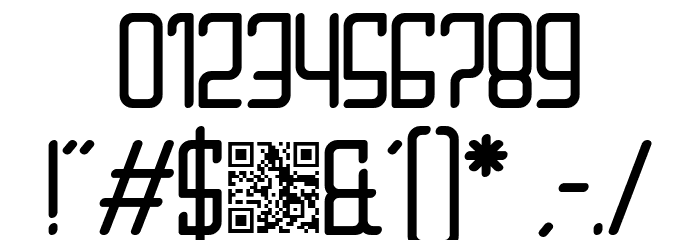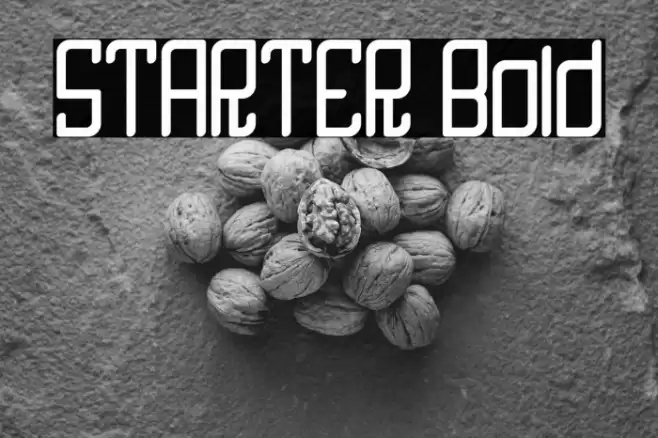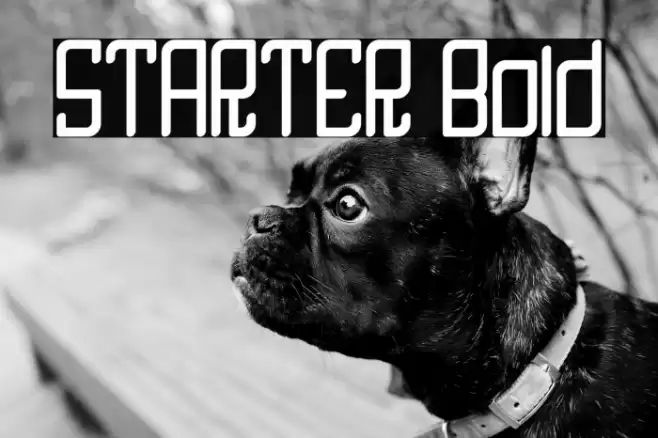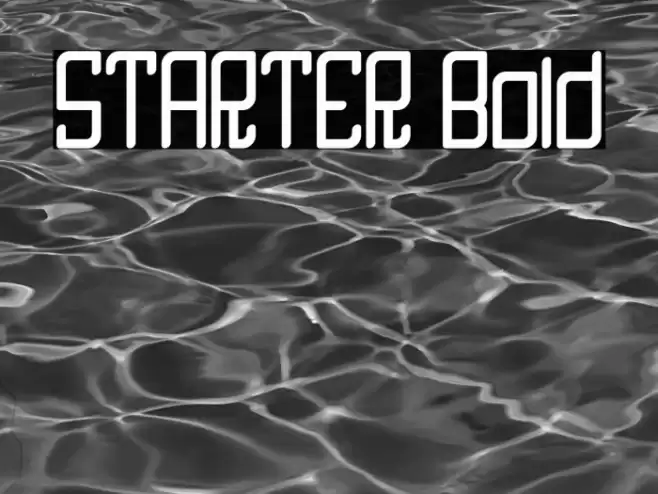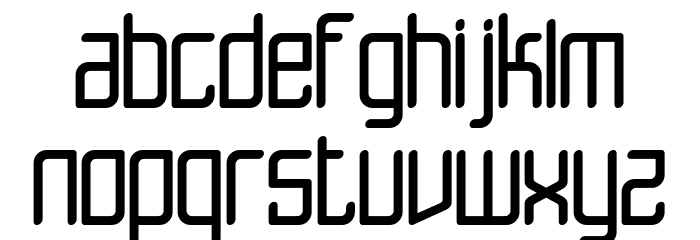
STARTER Bold Font
STARTER Bold Description
This font features a modern and geometric design with rounded edges and a consistent stroke width. The characters are constructed with a tubular appearance, giving them a futuristic and tech-inspired look. The uppercase and lowercase letters maintain a uniform height, enhancing readability while adding a unique style. Numbers and special characters are designed to match the overall aesthetic, making them suitable for digital and print media. The font's clean lines and structured form make it ideal for projects that require a contemporary and sleek appearance.
| Use Case | Headlines, Logos, Digital Interfaces |
| Proposed Projects | Ideal for tech branding, digital interfaces, modern posters, and futuristic designs. |